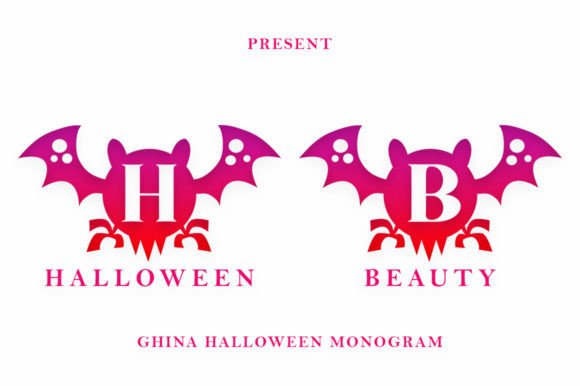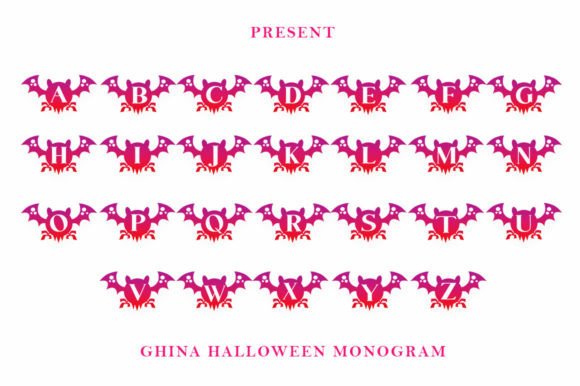
Introduction to Ghina Halloween Monogram Font
Do you ever find yourself in the middle of a creative project, struggling to find the perfect design element to bring it all together? Maybe it’s a spooky Halloween invitation, a mysterious logo for a new business, or a playful social media post. Whatever it is, I’m sure you’ll agree that the right font can make all the difference. That’s where the Ghina Halloween Monogram Font comes in – a free download that’s sure to add a touch of magic to your design.
As a valuable design resource, the Ghina Halloween Monogram Font offers a high-quality, transparent background that allows for seamless integration into any project. Its incredibly youthful feel makes it perfect for designers looking to create a unique and eye-catching visual identity.
- Unique Design: Ghina Halloween Monogram Font offers a unique and creative way to add a spooky touch to your design projects.
- High-Quality Design Resource: This font is a high-quality design resource that can be used for various creative projects, including Halloween-themed designs.
- Monogram Style: The font features a monogram style that can be used to create custom initials and logos for Halloween-themed designs.
Honest Review: Ghina Halloween Monogram Font
I recently stumbled upon the Ghina Halloween Monogram Font while searching for a unique design resource for a creative project. I must say, it’s a real treat for Halloween enthusiasts and designers alike!
What works well: ✨ The font is available for free download, which is always a plus. The high-quality design is perfect for adding a spooky touch to invitations, social media graphics, or even merchandise. The transparent background allows for seamless integration into any design project.
Here are some of the key features I love:
- High-quality design with intricate details
Overall impression: I’m thoroughly impressed with the Ghina Halloween Monogram Font. It’s a fantastic design resource that’s sure to add a touch of Halloween magic to any creative project. Just be mindful of the limitations and licensing restrictions before using it for commercial purposes.
To get the most out of this font, use it in combination with other design elements, such as graphics and images. Experiment with different font sizes, colors, and styles to create a unique and eye-catching design.
The Ghina Halloween Monogram Font is perfect for creative projects, such as Halloween invitations, party decorations, and spooky-themed designs. It’s also great for designing logos, icons, and other graphics that require a spooky or mysterious feel.